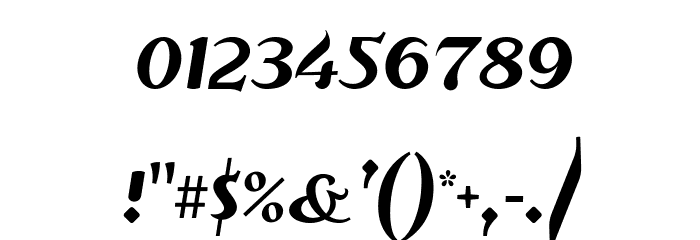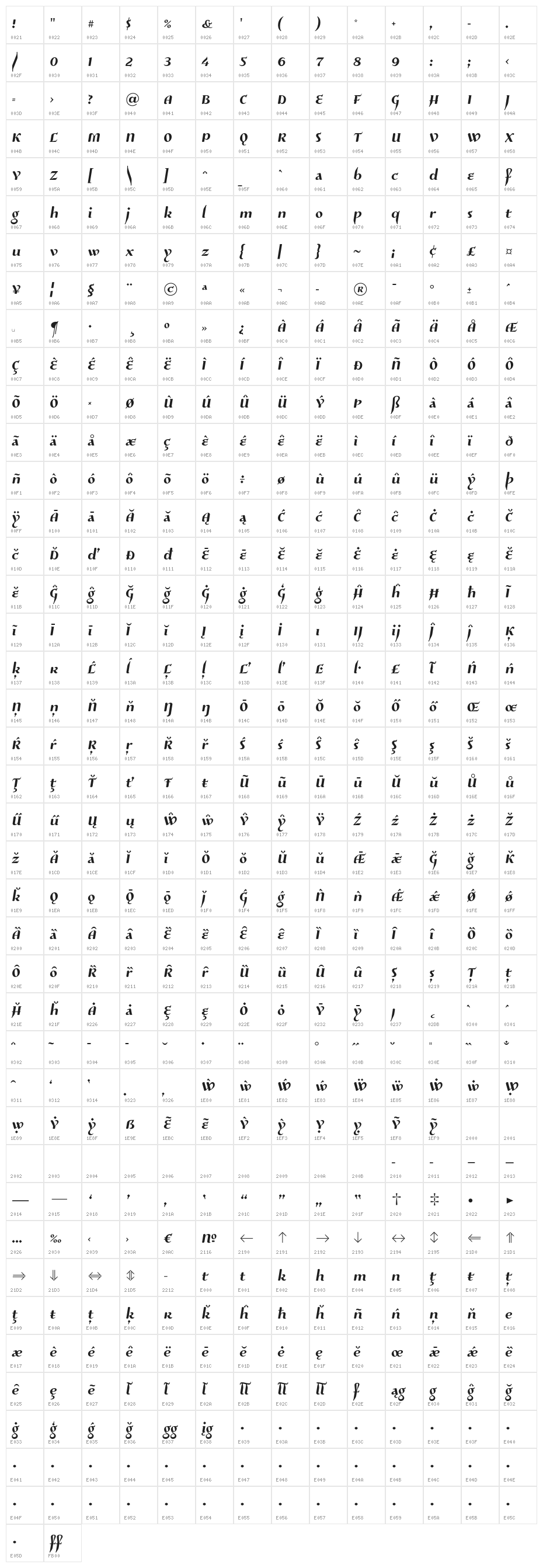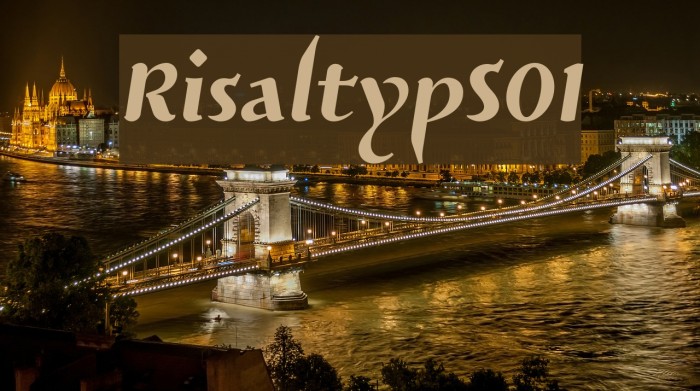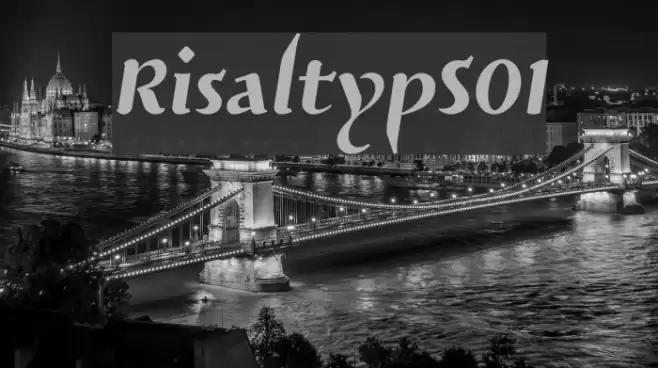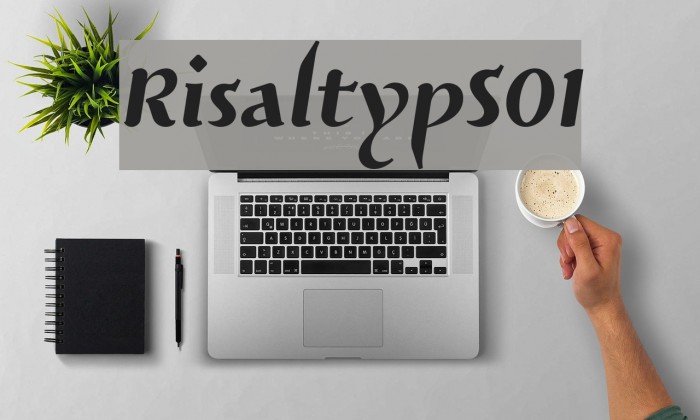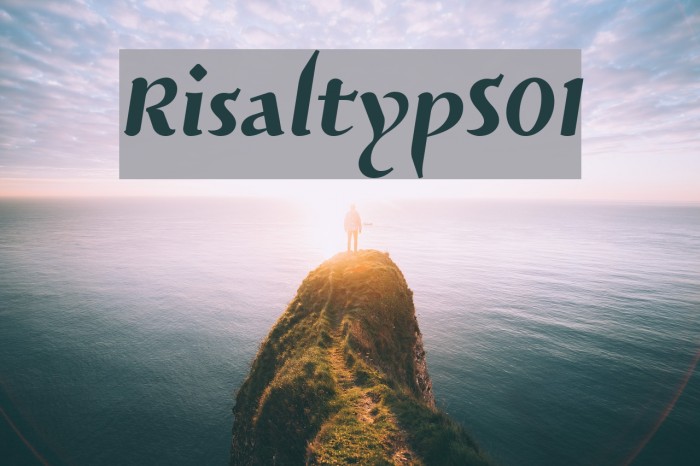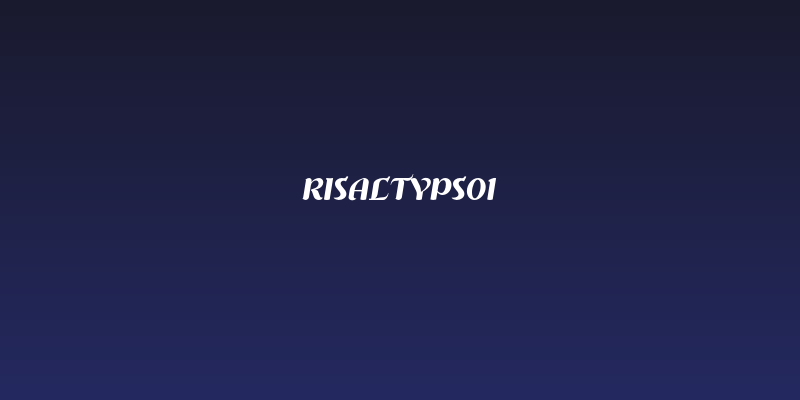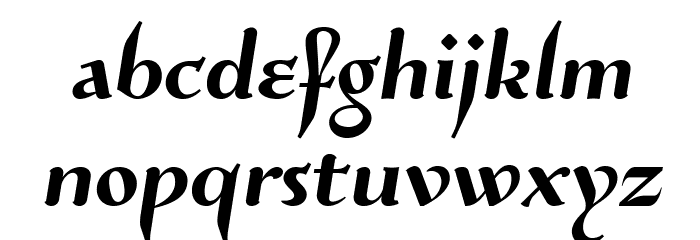
RisaltypS01 Font
RisaltypS01 Description
This font features a dynamic and elegant script style with a calligraphic influence. The characters exhibit a fluid motion with a slight slant, giving it a sense of movement and grace. The uppercase letters are bold and prominent, while the lowercase letters maintain a consistent flow with distinctive loops and curves. The numerals are clear and maintain the same stylistic features as the letters. Special characters are well-integrated, maintaining the overall aesthetic. This font is suitable for projects that require a touch of sophistication and artistic flair.
| Proposed Projects | Ideal for wedding invitations, elegant branding, artistic posters, and decorative headlines. |